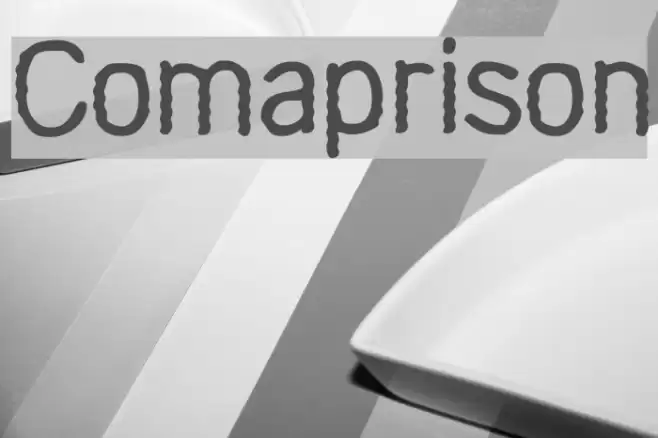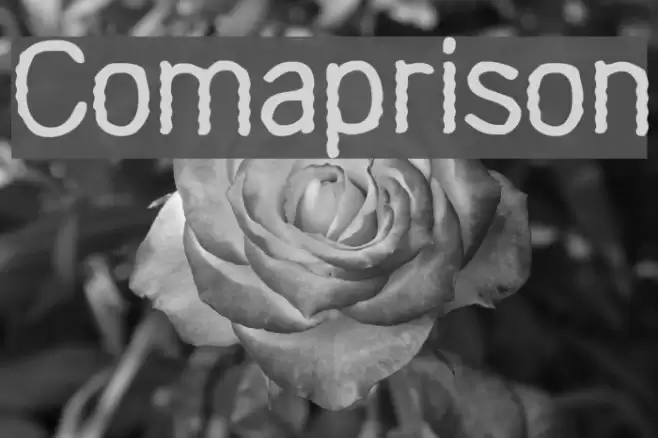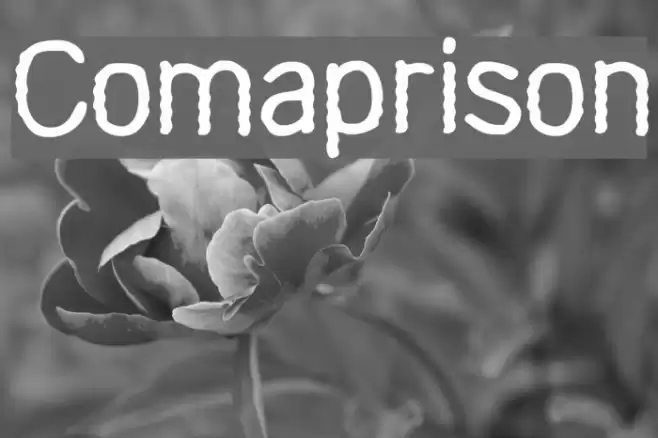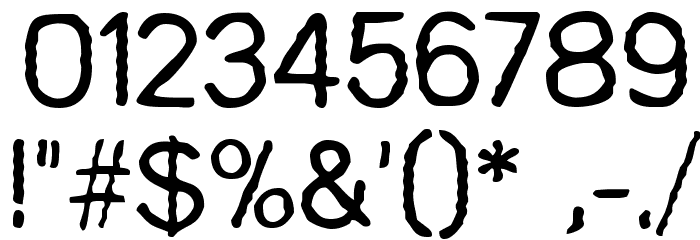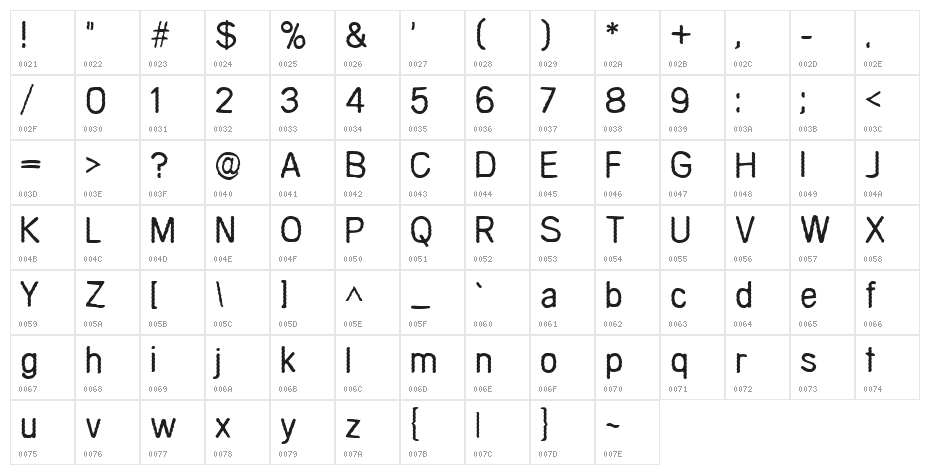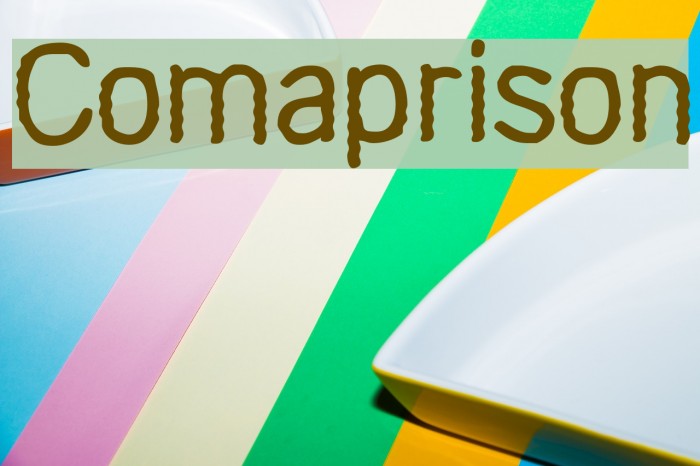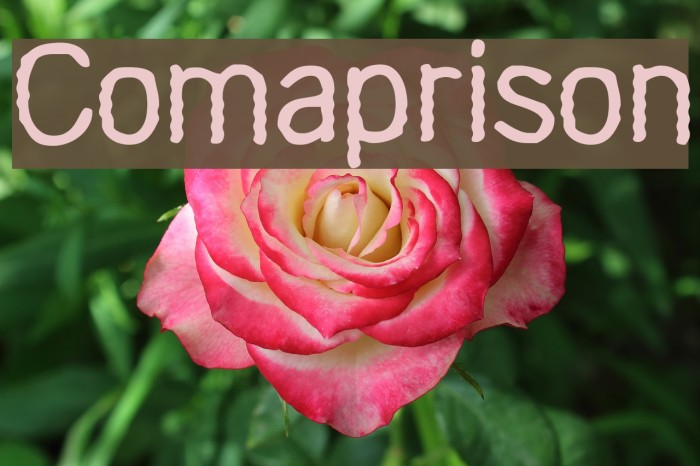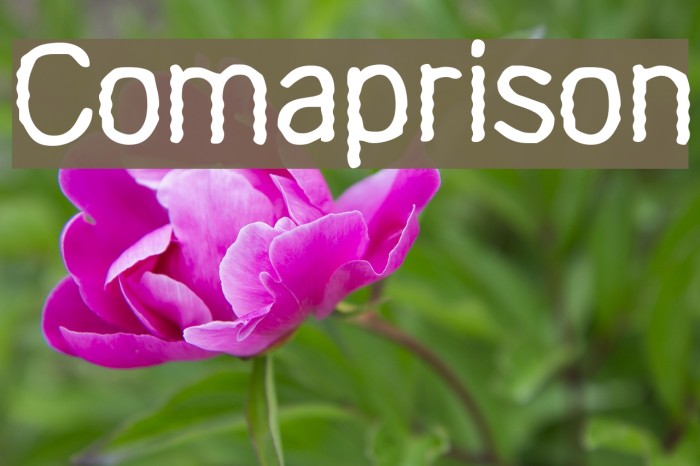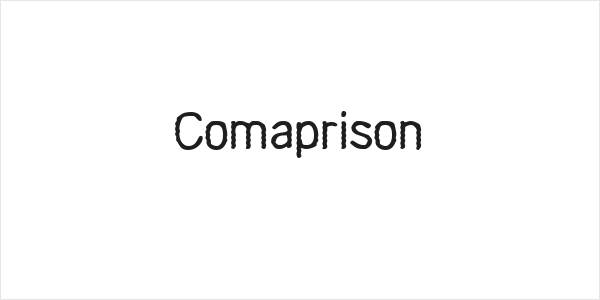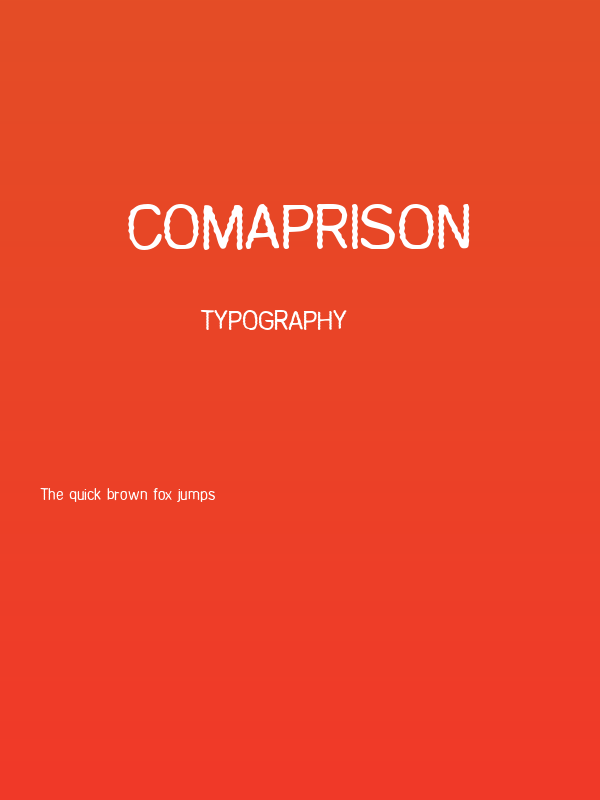
Comaprison Font
Comaprison Description
This font features a unique, textured design that resembles a twisted rope or cord, giving it a distinctive and playful appearance. The characters are bold and rounded, with a consistent thickness throughout, which adds to its decorative appeal. The uppercase and lowercase letters maintain a uniform style, while the numerals and special characters are crafted with the same attention to detail. This font's quirky and eye-catching design makes it suitable for creative projects that require a fun and informal touch.
A bold, textured font with a rope-like appearance, perfect for playful designs from Kids fonts.
- Font: Comaprison
- Proposed Projects: Ideal for children's book covers, playful posters, creative branding, and event invitations.